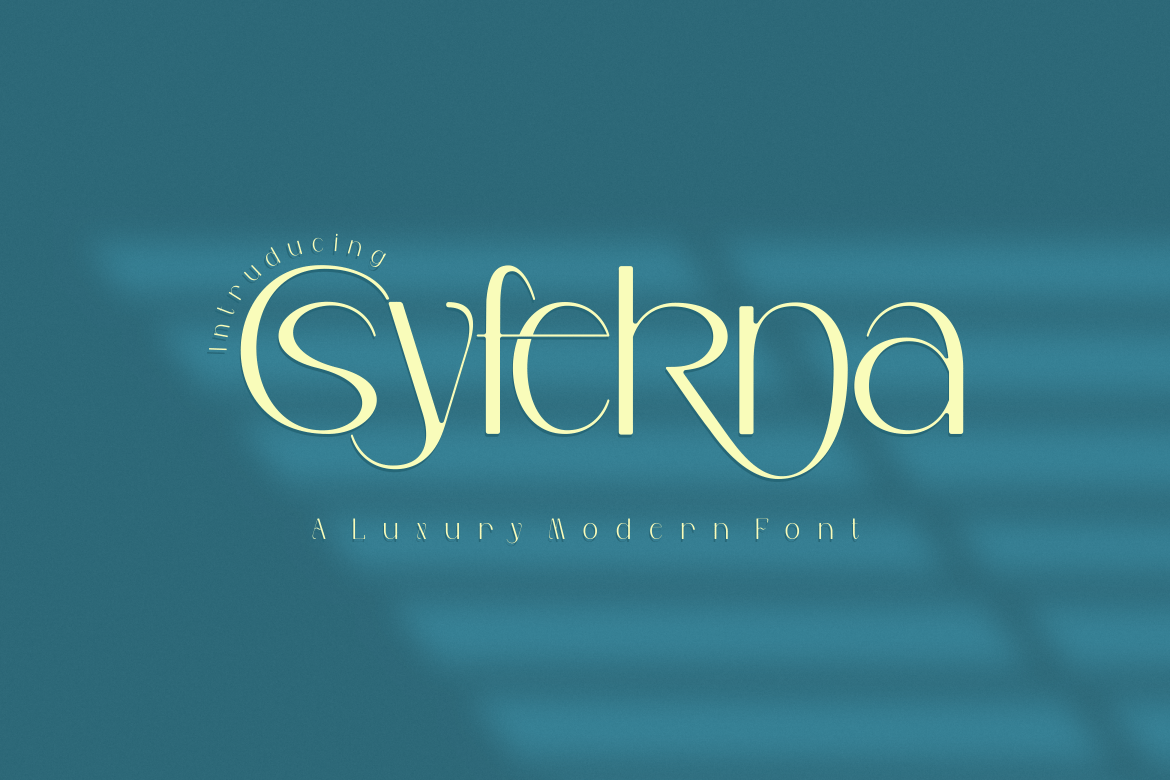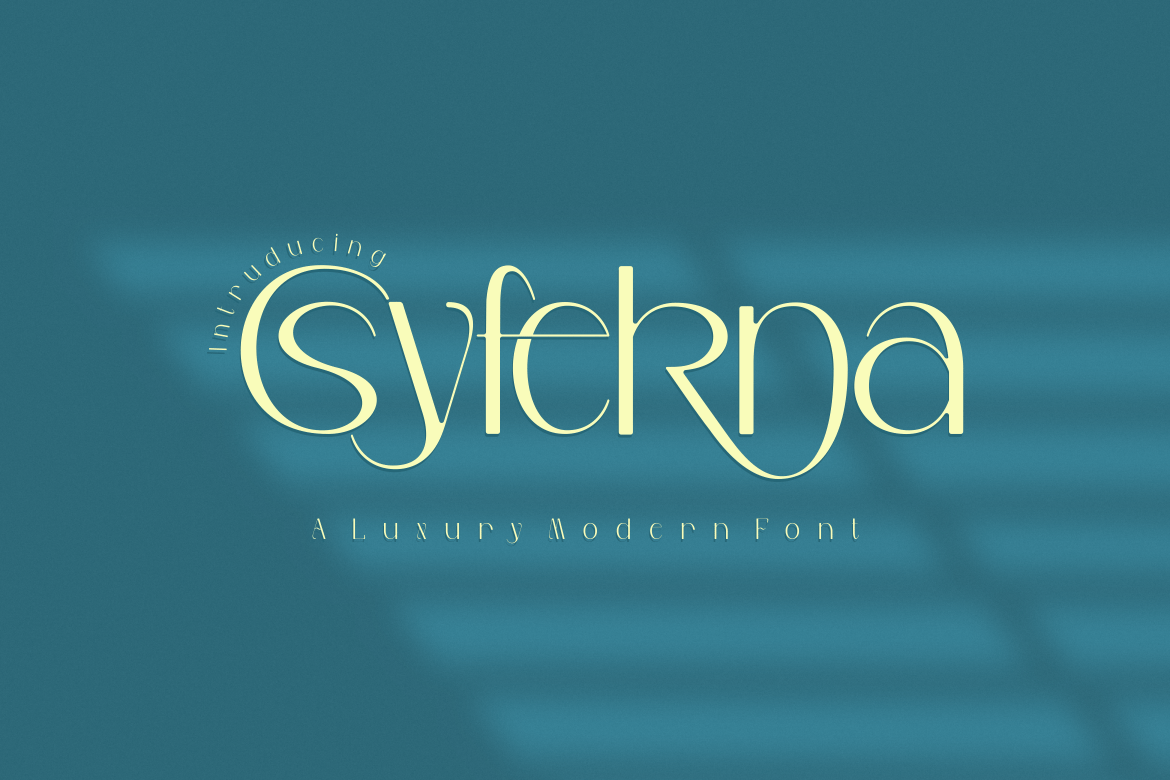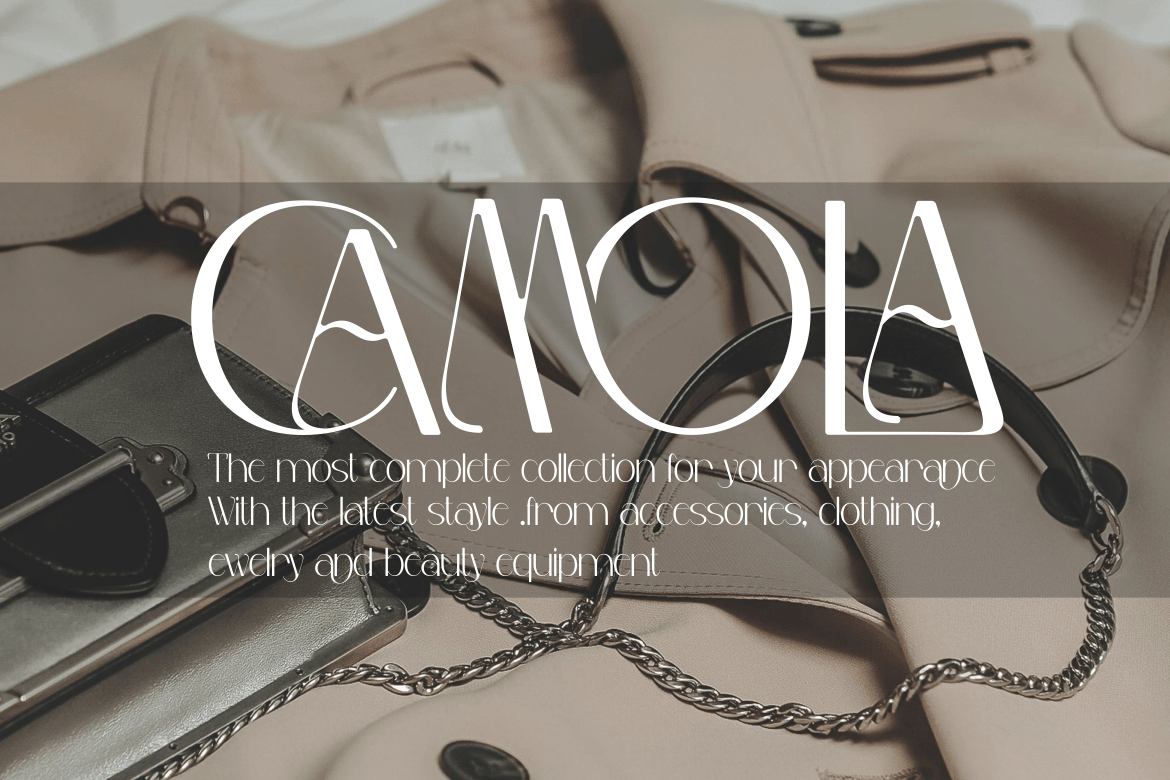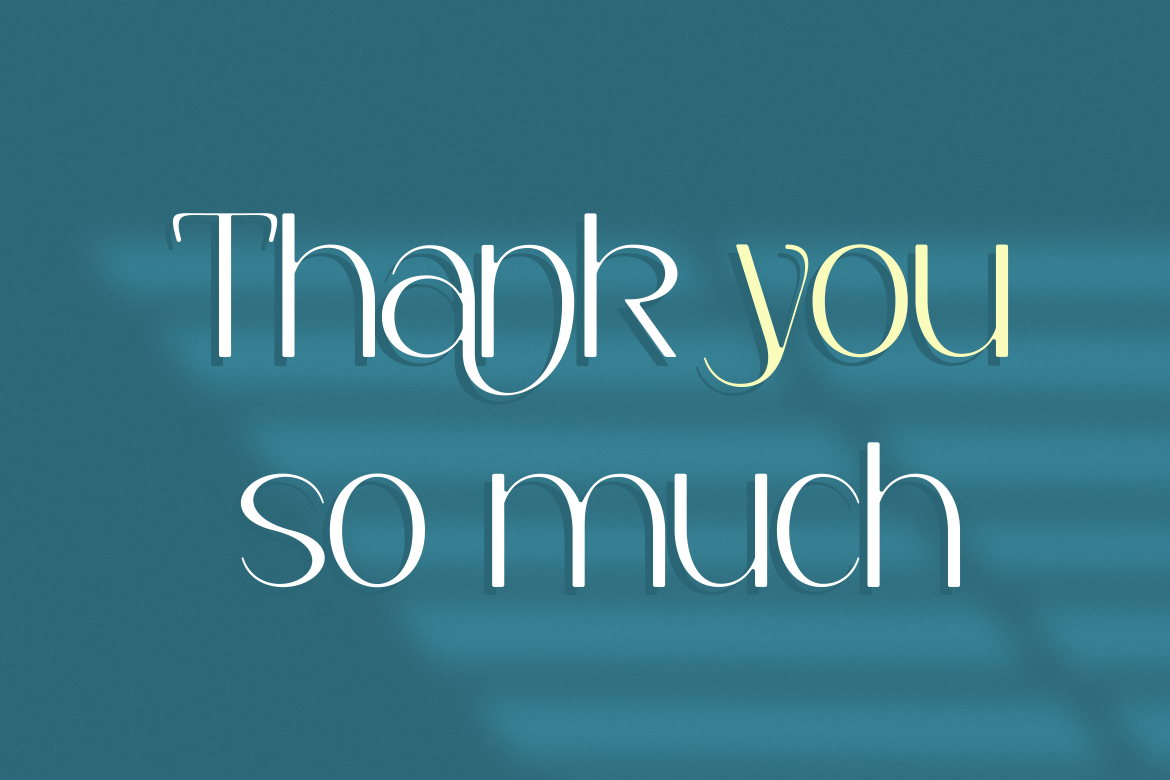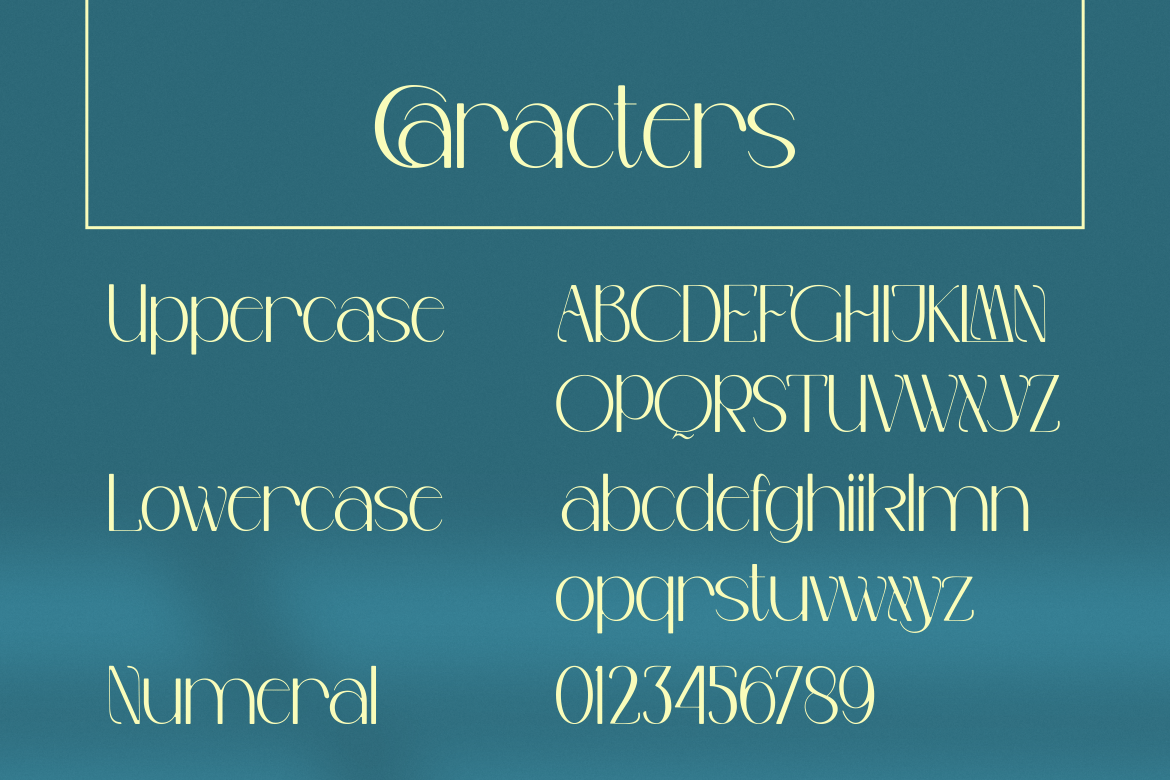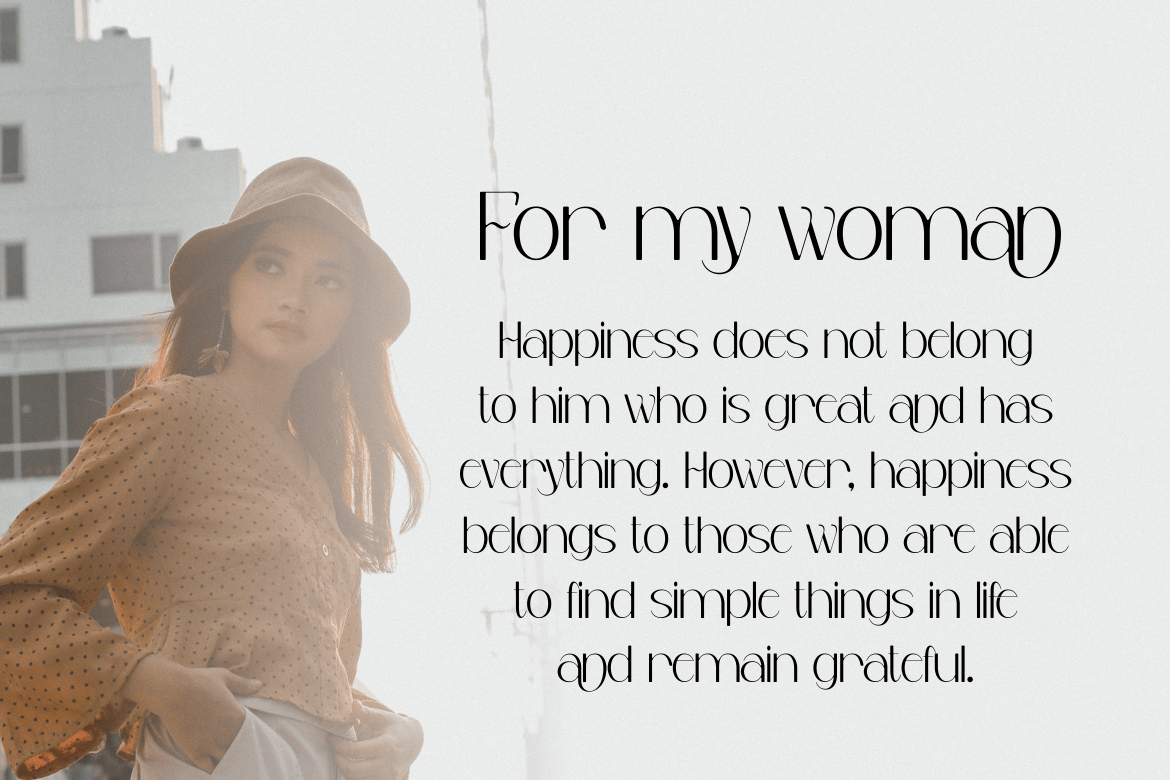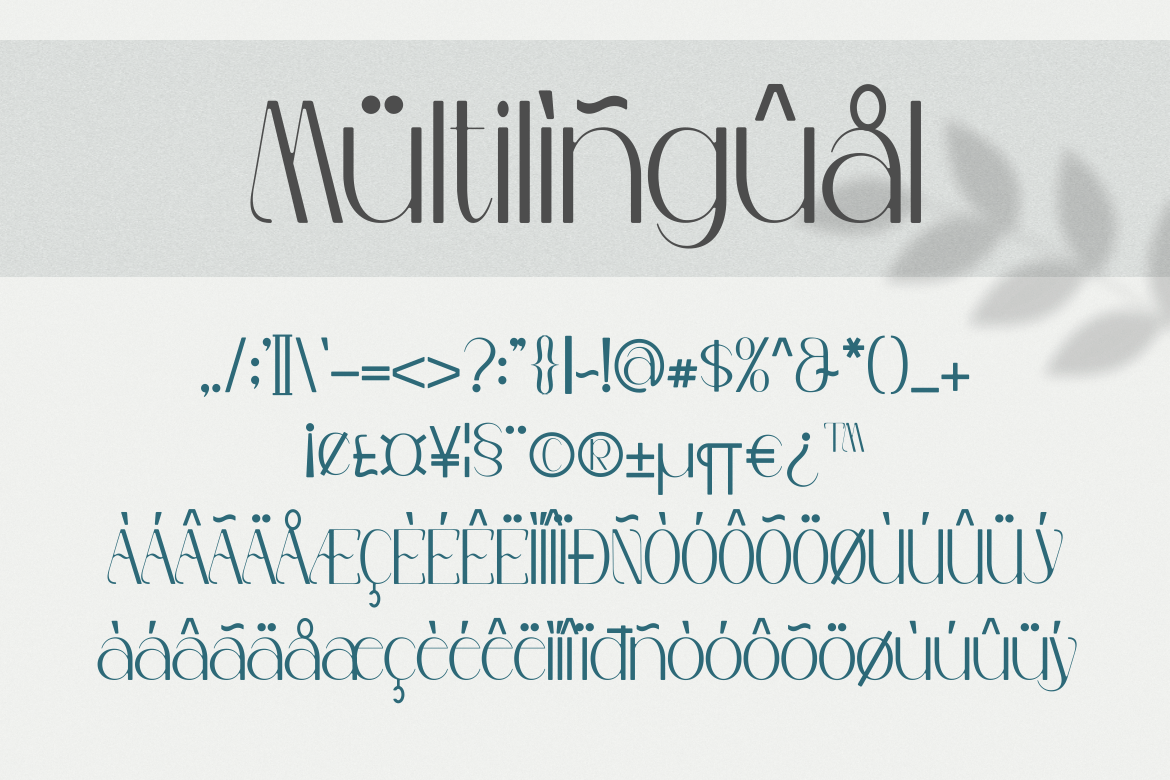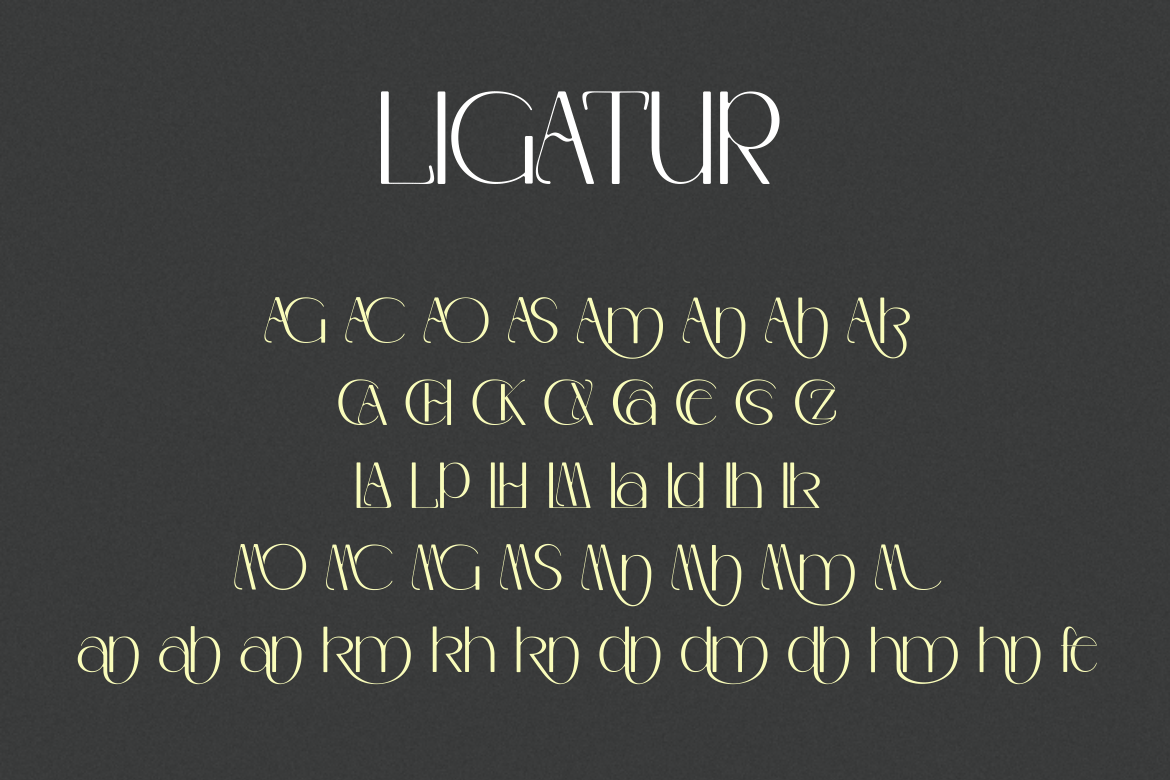
Introducing our new product **Csyfekna – Luxury Modern Font** Modern Font
**Csyfekna – Luxury Modern Font** – Modern Font is a bold and authentic display font. The font is suitable for any branding project like logo, t-shirt printing, esport, and many more. outstanding in a wide range of contexts.
**Features**
* Uppercase
* lowercase
* ligature
* Multilingual